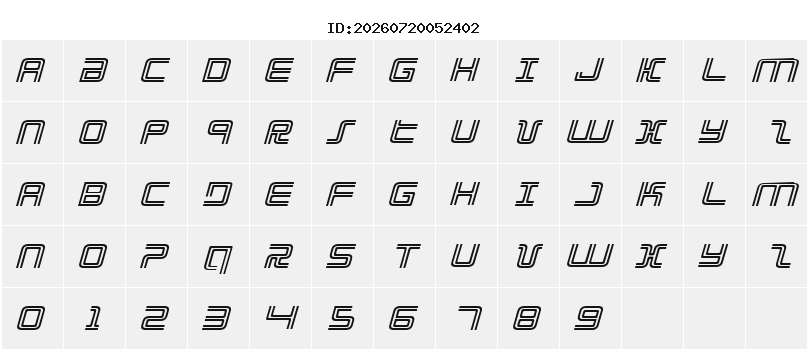
About Election Day Expanded Italic.ttf
Election Day Expanded Italic.ttf is a modern, elegant sans-serif font designed for ultimate readability and visual harmony. Perfect for branding, headlines, web design, and print materials.